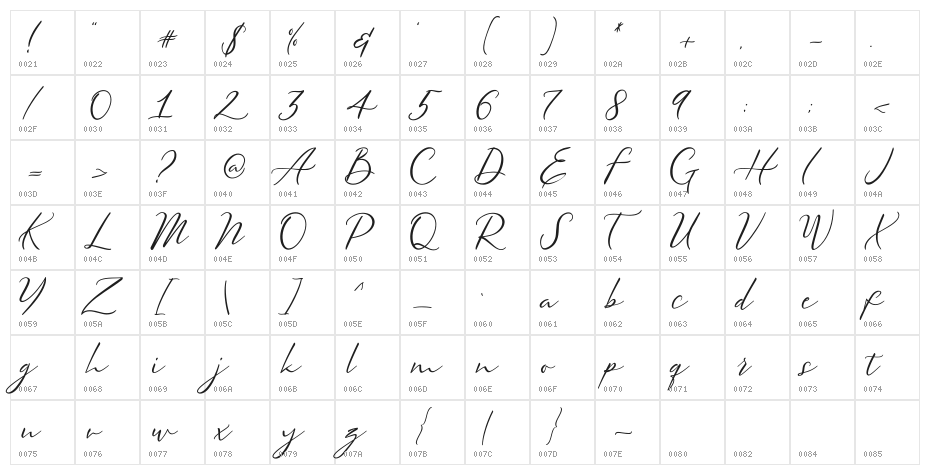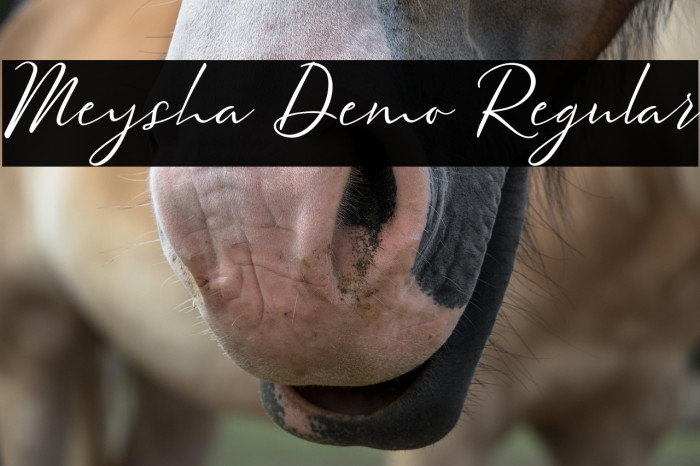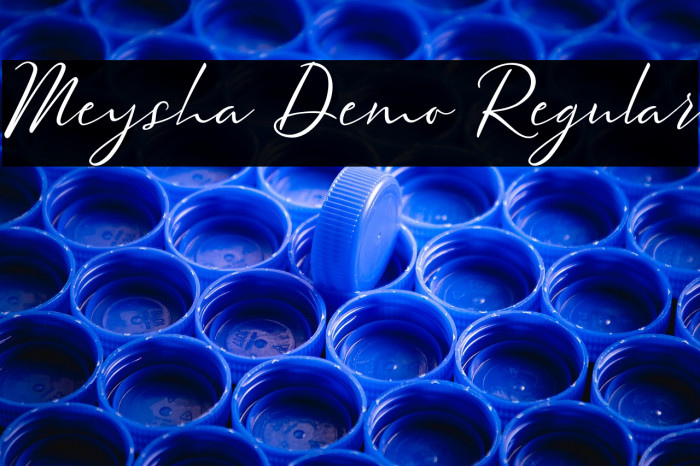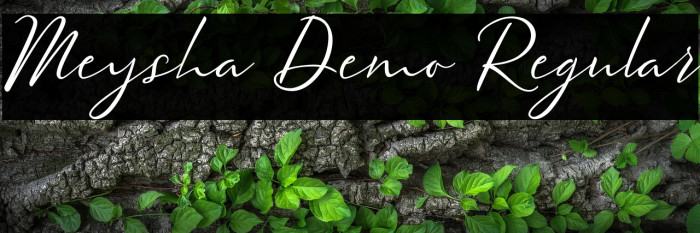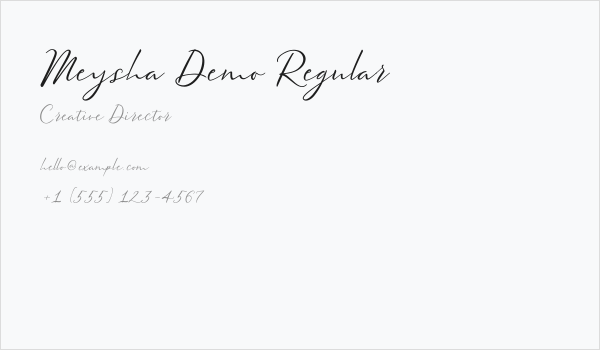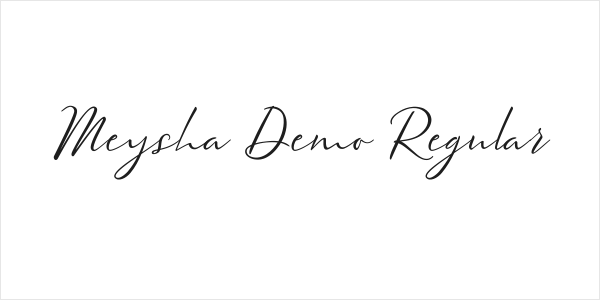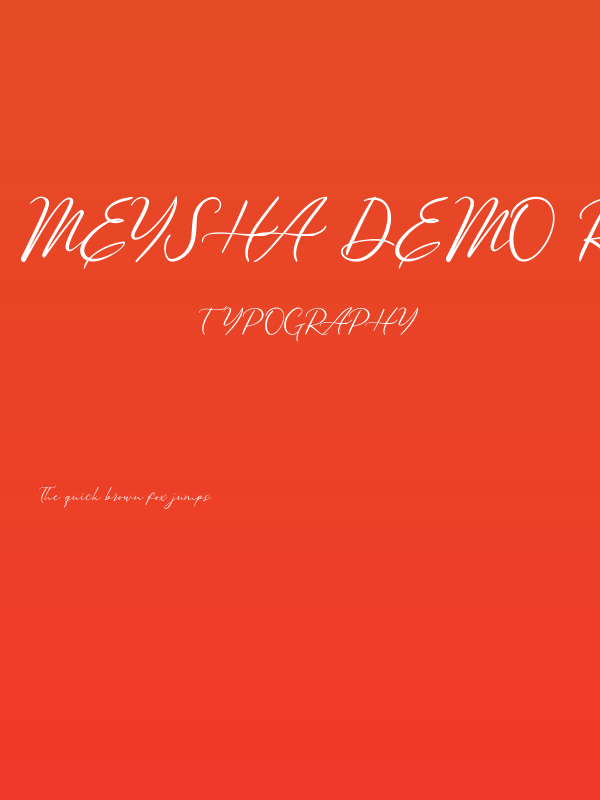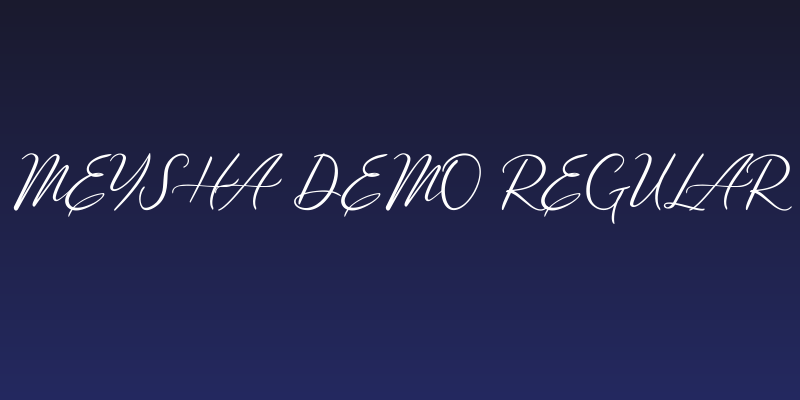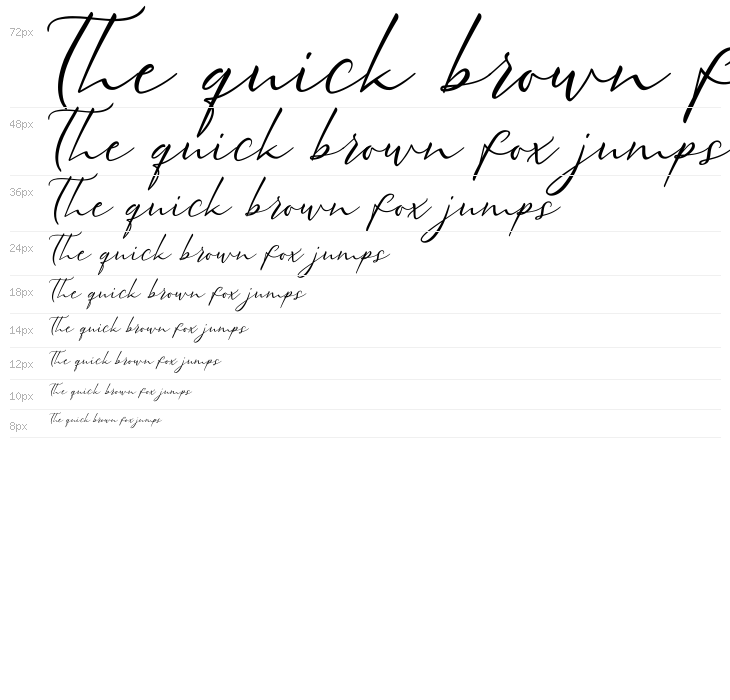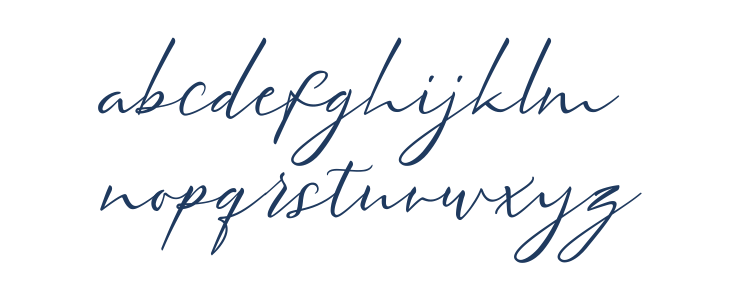
Meysha Demo Regular Font
Meysha Demo Regular Description
This elegant script font features a flowing, cursive style with smooth, connected strokes that mimic the fluidity of handwriting. The uppercase letters are tall and graceful, with sweeping curves and delicate loops, while the lowercase letters maintain a consistent slant and rhythm, enhancing the font's overall harmony. The numerals are stylish and blend seamlessly with the alphabet, providing a cohesive look. Special characters are thoughtfully designed, adding to the font's versatility. This font exudes sophistication and charm, making it ideal for projects that require a personal touch.
| Use Case | Logos, Invitations, Personal stationery |
| Proposed Projects | Ideal for wedding invitations, greeting cards, branding, and elegant packaging designs. |